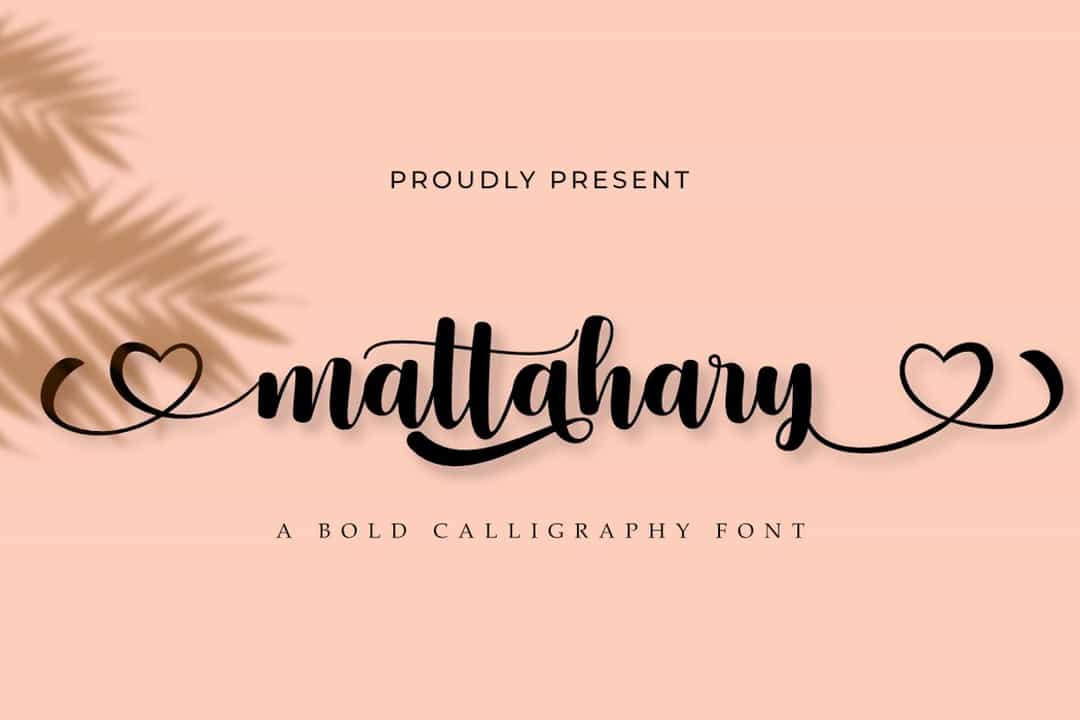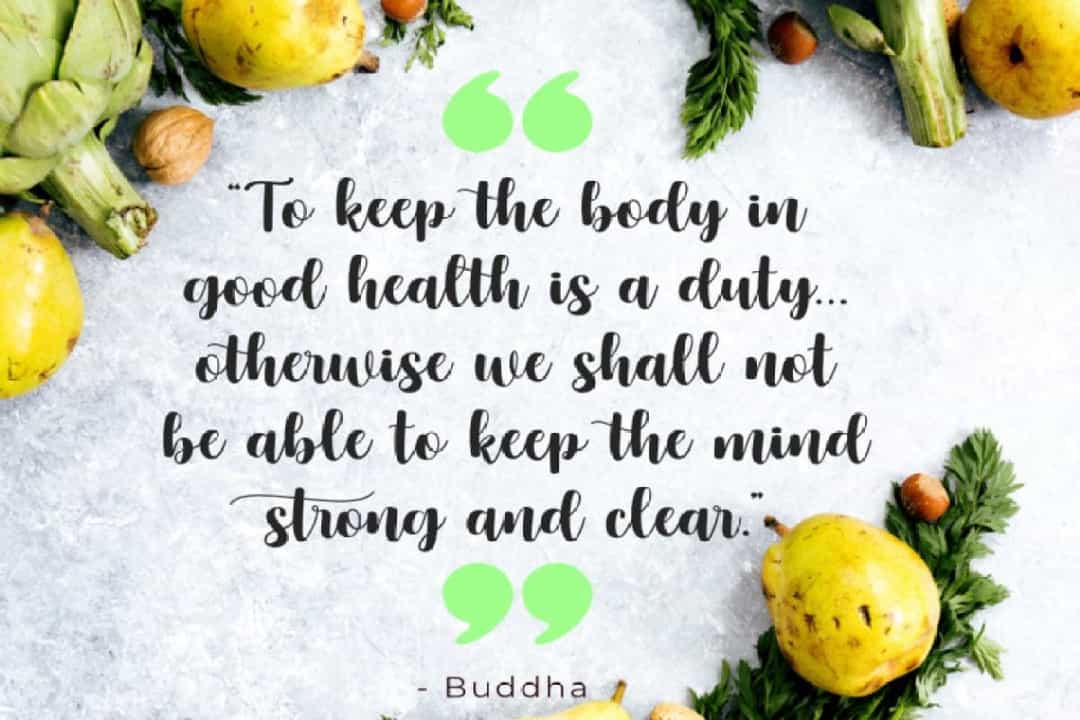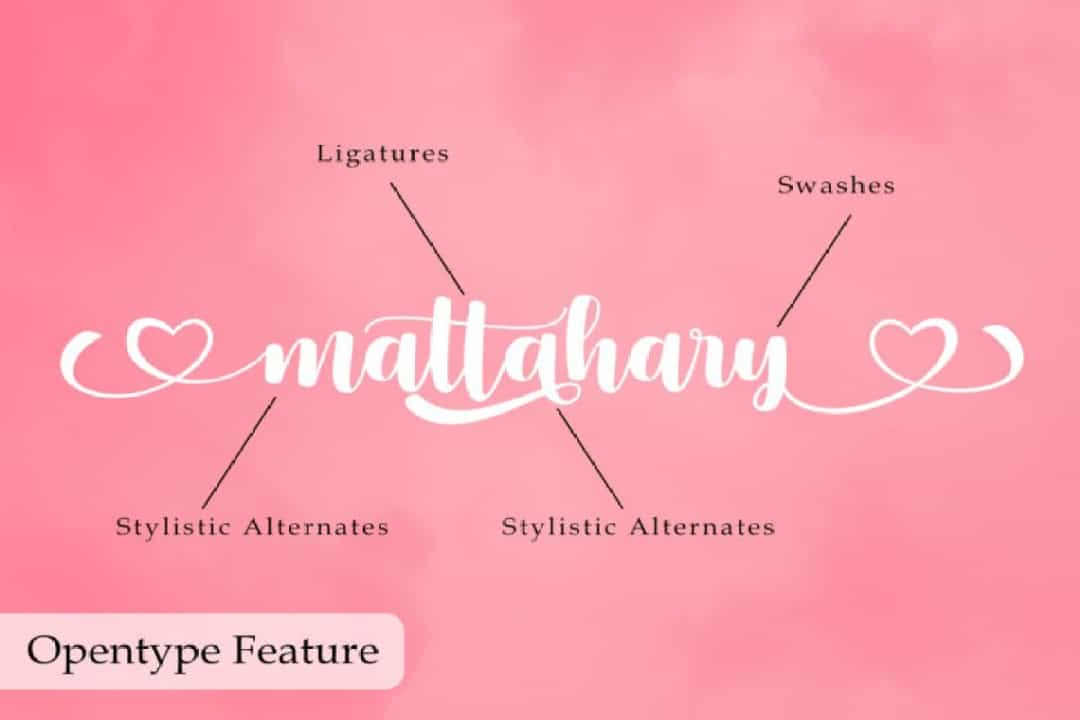
Mattahary Font is designed with Open Type features and includes final and initial touches numerals, punctuation marks, alternate numerals in alternation, alloys as well as support for various languages. Mattahary font is designed with a natural handwriting style, making it suitable for various projects such as branding and logo design,